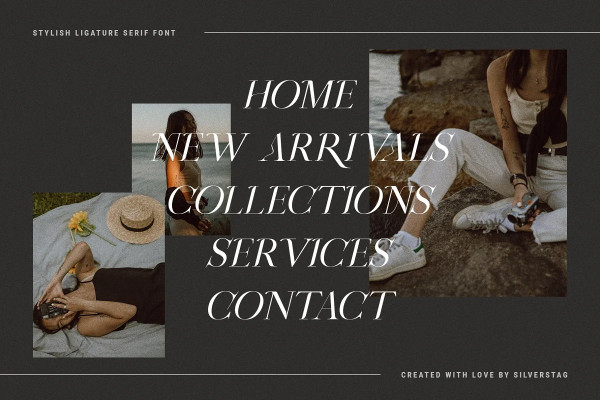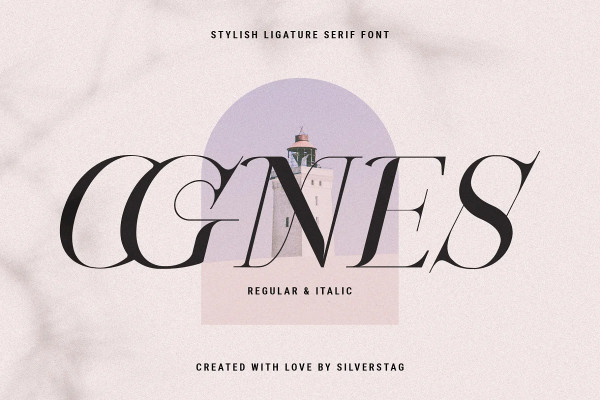
Ognes Font
Ognes Font, a brand new ligature serif font inspired by unbeatable elegance and beauty of France! I am really proud to offer you my new chic font that comes with over 100 ligatures and alternate letters. Each of the standard letters, ligatures, and alternates was handcrafted and made to fit other letters without exception. All letters are 100% unique with soft rounded edges that will give you a different look than any other serif font.
So, whether you have a client that needs a new chic logo, or you’re designing your social media posts. Maybe you’re preparing your wedding mood board, stationery, invitations, OGNES font is just perfect for all of that and more. Check out the photos I have prepared for you to see what you can do with it and happy creating!